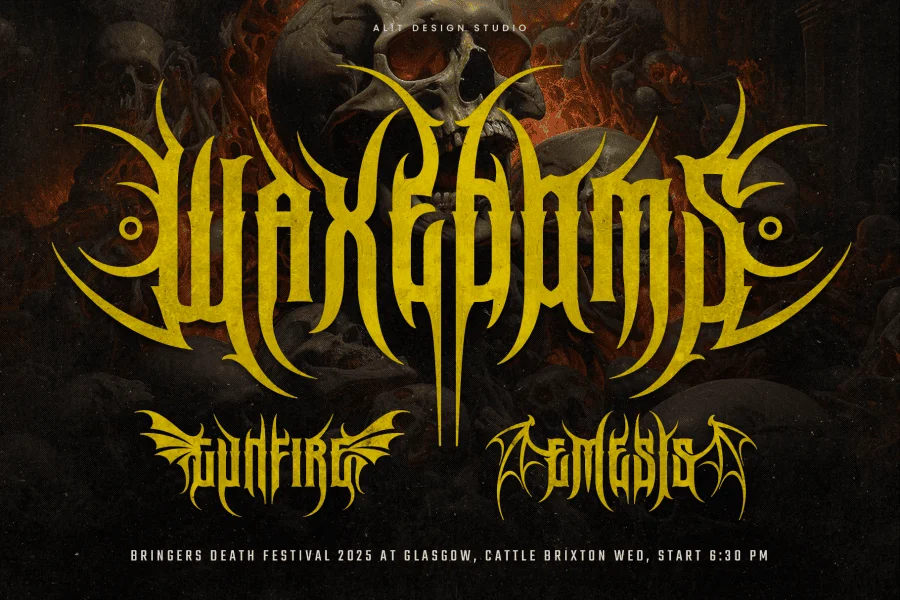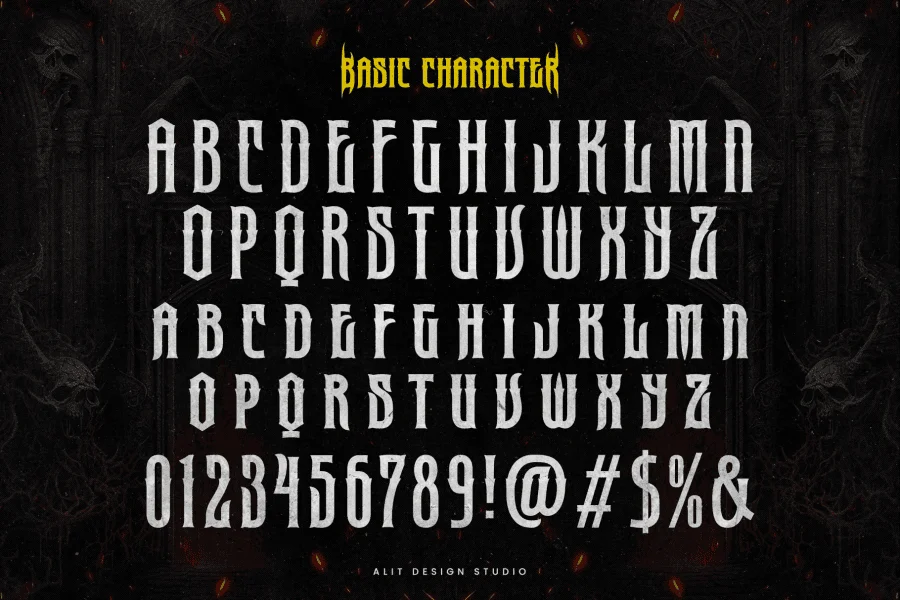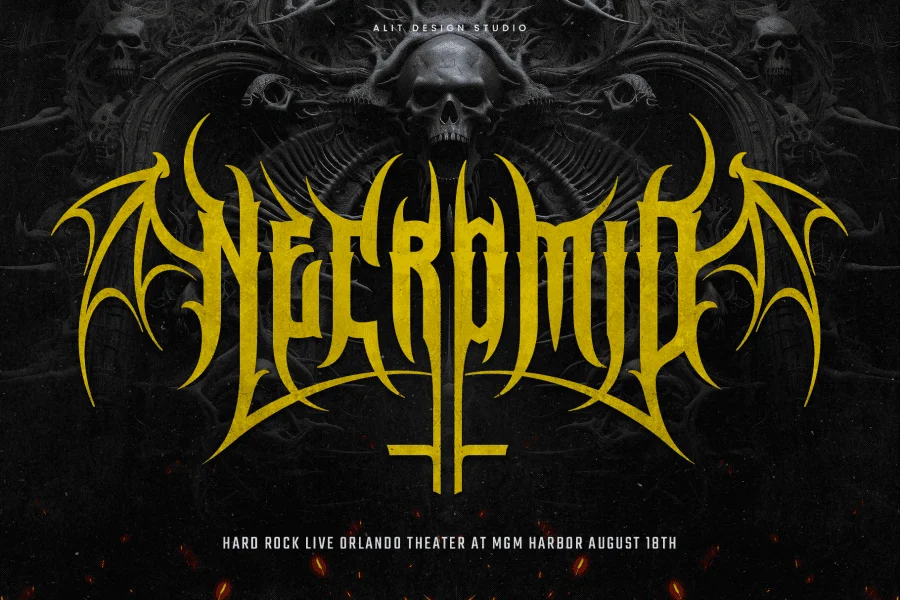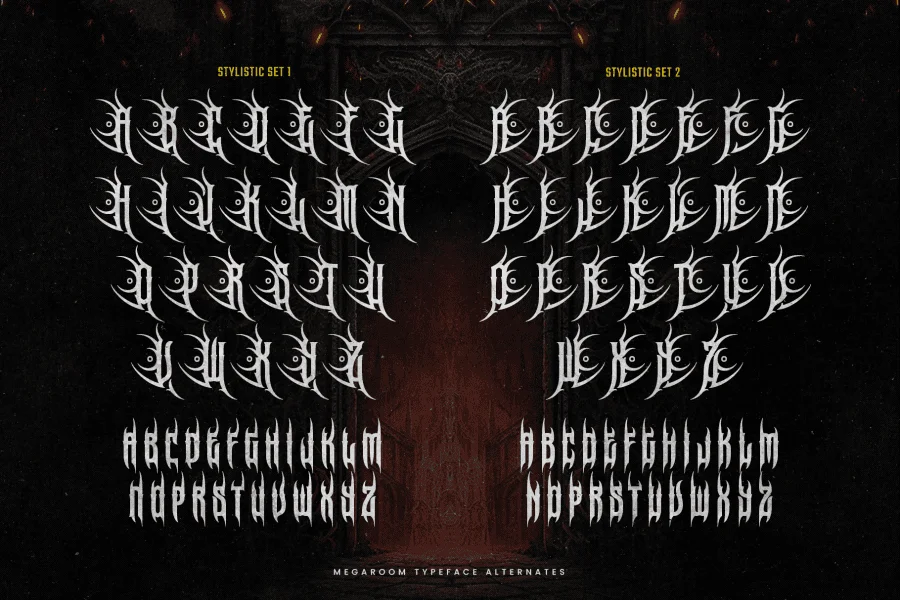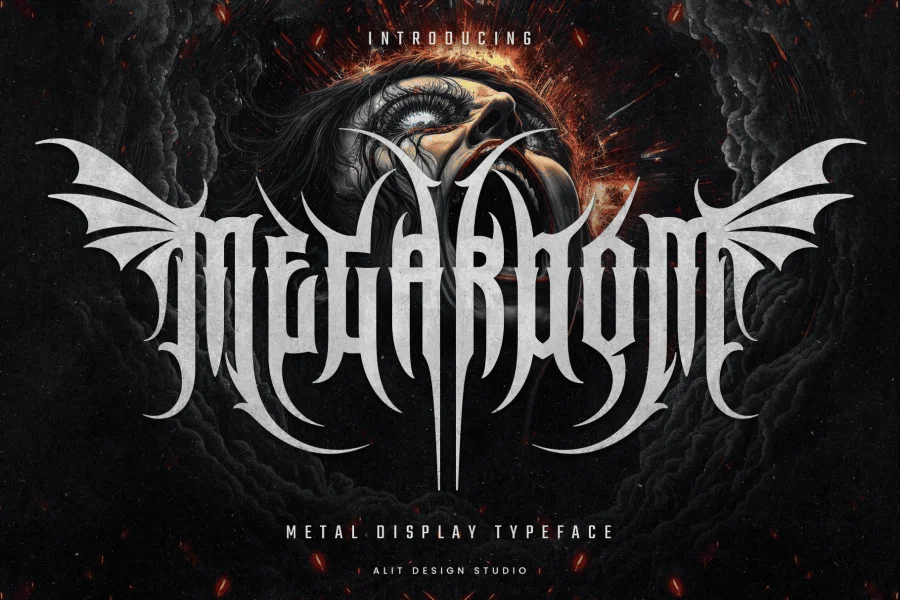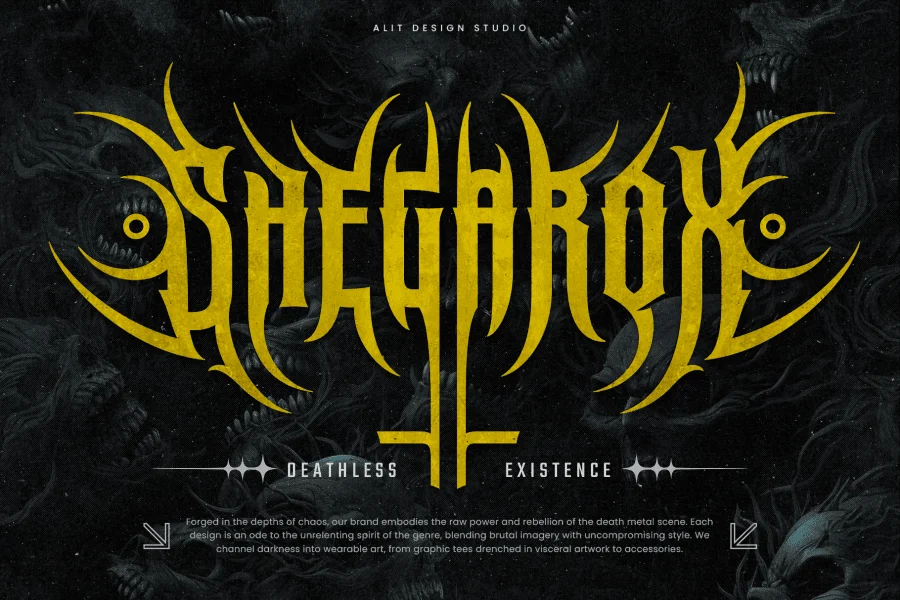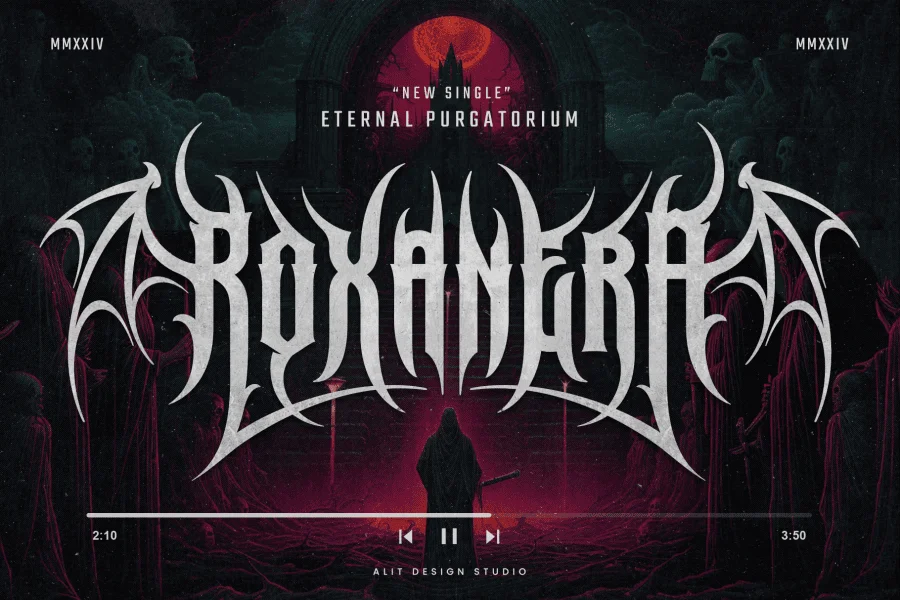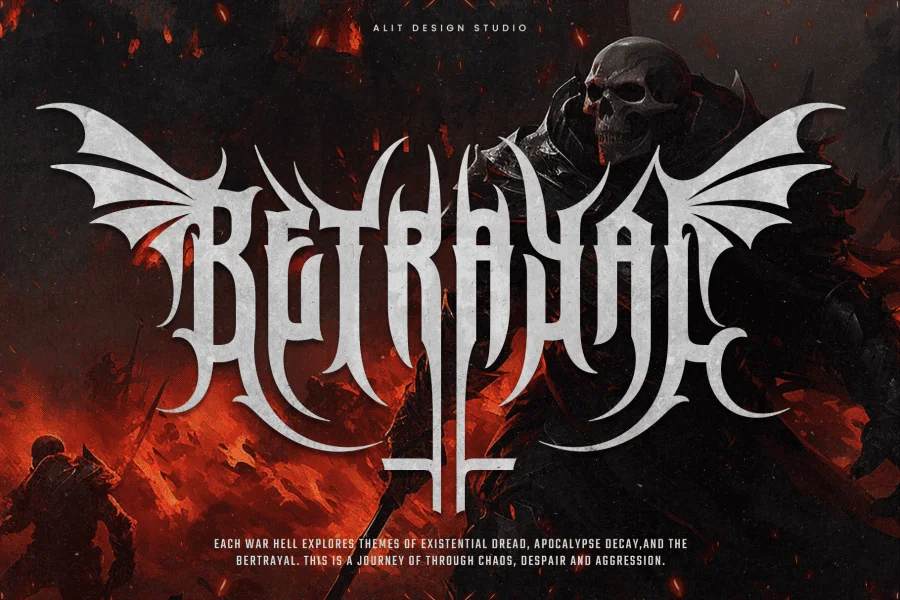
Megaroom Typeface - Modern Death Metal Font
Unleash the fury with Megaroom Typeface, the ultimate modern death metal font designed to dominate your creative projects. This aggressive and edgy typeface channels the raw energy of death metal while maintaining a modern, gamer-inspired aesthetic.